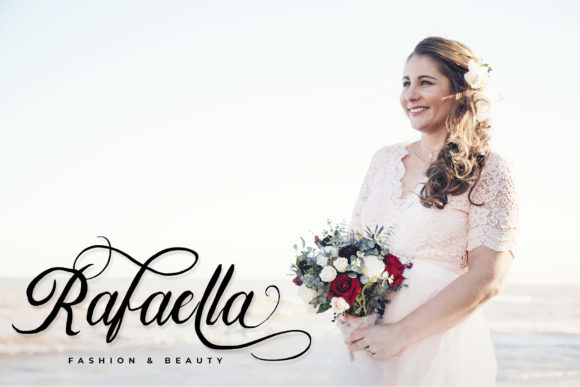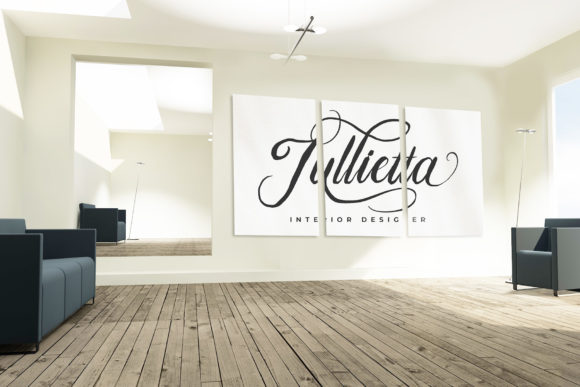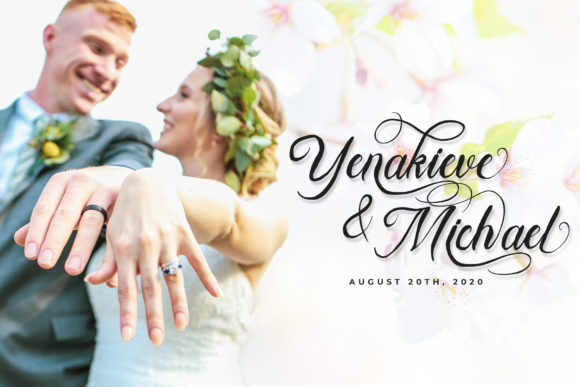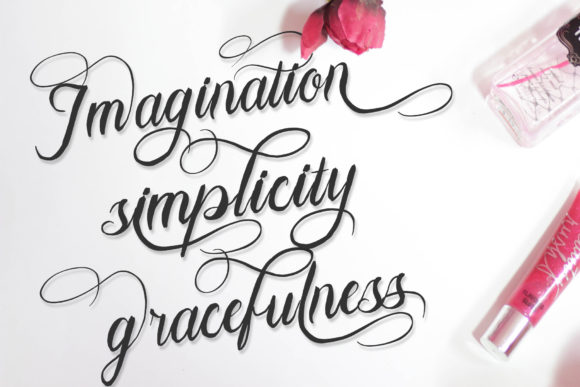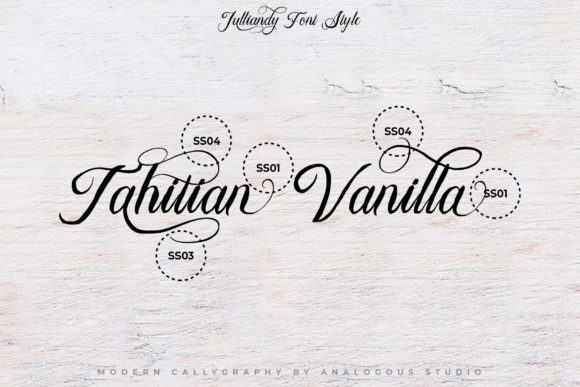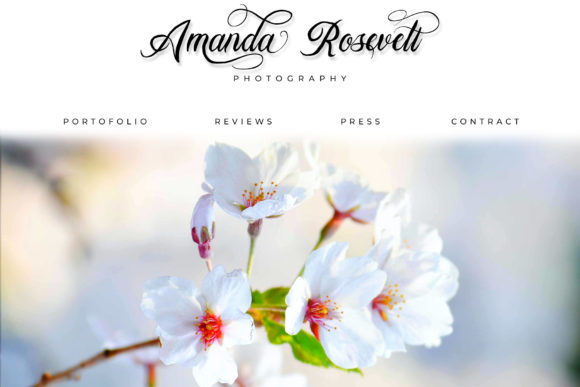
Bulliandry Font: Elevate Your Designs with Elegant Calligraphy
In the world of typography, few fonts manage to strike a balance between timeless elegance and modern friendliness. Bulliandry Font is one such exceptional find that has captured the hearts of designers and crafters alike. This beautifully crafted handwritten font brings a touch of magic to any design project, making it a must-have for those seeking to add a dash of sophistication and authenticity.
The Essence of Bulliandry Calligraphy
Bulliandry Calligraphy is more than just a font; it’s an experience. With its roots in traditional calligraphy, this font has been carefully crafted to exude elegance and poise. Each letter is meticulously designed to showcase a classic style that instantly elevates any design. Whether you’re working on a branding project, a wedding invitation, or a packaging design, Bulliandry Calligraphy brings a level of sophistication that’s hard to match.
A Perfect Blend of Timeless Elegance and Authenticity
What sets Bulliandry Font apart is its unique blend of timeless elegance and authentic calligraphy. The font’s classic style ensures that your designs never go out of fashion, while its friendly feel keeps the overall look approachable and engaging. This balance makes Bulliandry Font incredibly versatile, suitable for a wide range of design projects from digital to print.
Features of Bulliandry Font
- Classic Style: Bulliandry Font boasts an incredibly classic style that adds a touch of sophistication to any design.
- Friendly Feel: Despite its elegance, the font maintains a friendly feel, making it perfect for designs that need to connect with the audience on a personal level.
- Authentic Calligraphy: The font’s design is deeply rooted in traditional calligraphy, offering an authentic look that’s hard to replicate with modern fonts.
- Versatility: From branding and advertising to packaging and personal projects, Bulliandry Font’s versatility knows no bounds.
Why Choose Bulliandry Font?
For designers and crafters looking to make their mark, Bulliandry Font offers several compelling reasons to be your go-to choice:
- Create Original Designs: With Bulliandry Font, you can create original and outstanding designs that stand out in a crowded marketplace.
- Ease of Use: The font is easy to use and integrate into various design projects, making it a convenient choice for creatives.
- High-Quality Output: The elegant and clear design of Bulliandry Font ensures high-quality output that reflects professionalism.
Tips for Using Bulliandry Font
To get the most out of Bulliandry Font, consider the following tips:
- Pair with Complementary Fonts: For maximum impact, pair Bulliandry Font with fonts that complement its classic and elegant style.
- Experiment with Sizes and Colors: Don’t be afraid to experiment with different sizes and colors to find the perfect combination for your design.
- Use for Headlines and Titles: Bulliandry Font shines when used for headlines and titles, where its elegance and readability can be fully appreciated.
| Author | Analogous |
Bulliandry Font is a magical handwritten font that brings a touch of elegance and authenticity to any design project. Its perfect blend of timeless elegance and friendly feel makes it an invaluable tool for designers and crafters seeking to create outstanding designs. Whether you’re looking to add sophistication to your branding, create memorable packaging, or simply want to elevate your design game, Bulliandry Font is an excellent choice. Discover the magic of Bulliandry Calligraphy and transform your designs with its classic charm and friendly appeal.